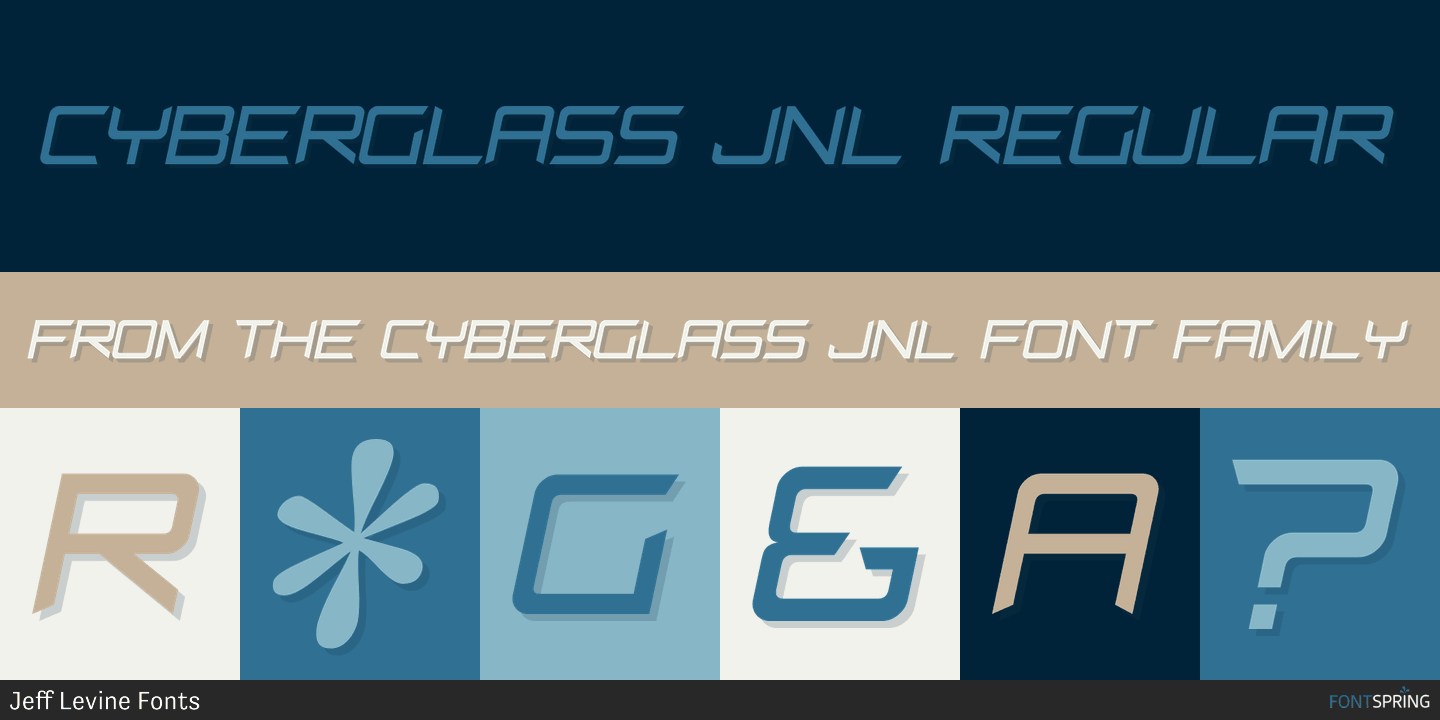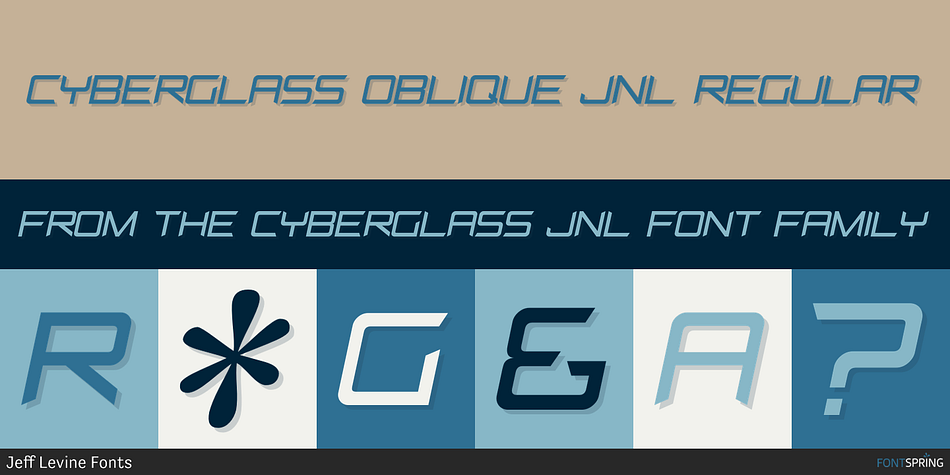
Cyberglass JNL is a display sans font family. This typeface has two styles and was published by Jeff Levine Fonts.
Cyberglass JNL is a throwback design to the Techno rage of the 1980s, when everything seemed to be typeset in lettering that represented something to do with computers, electronics or outer space.